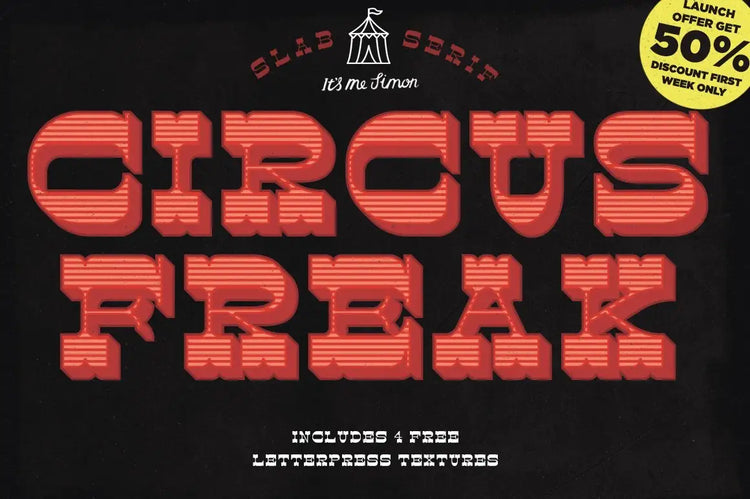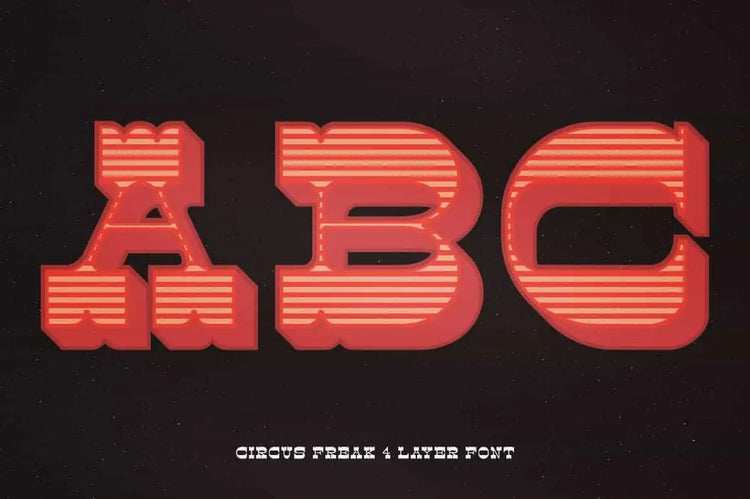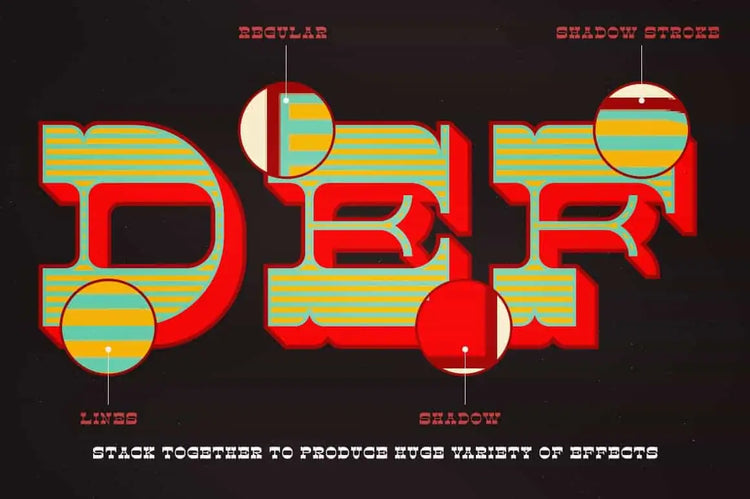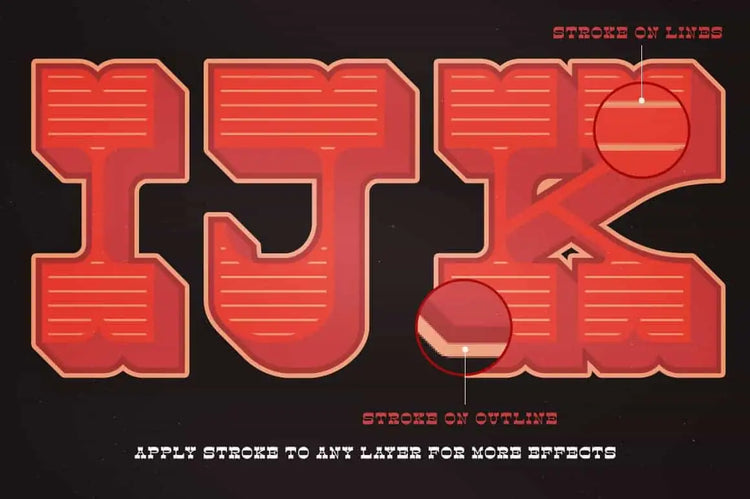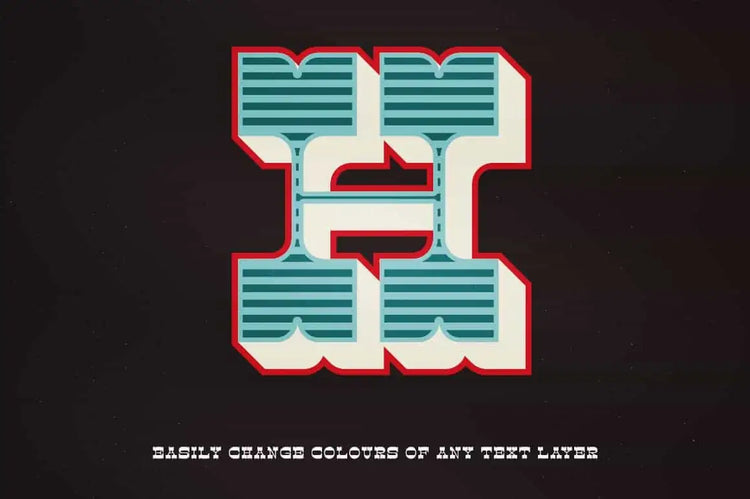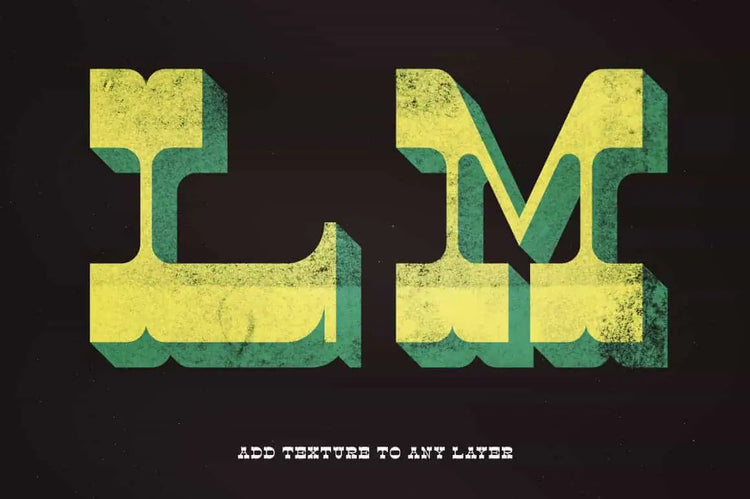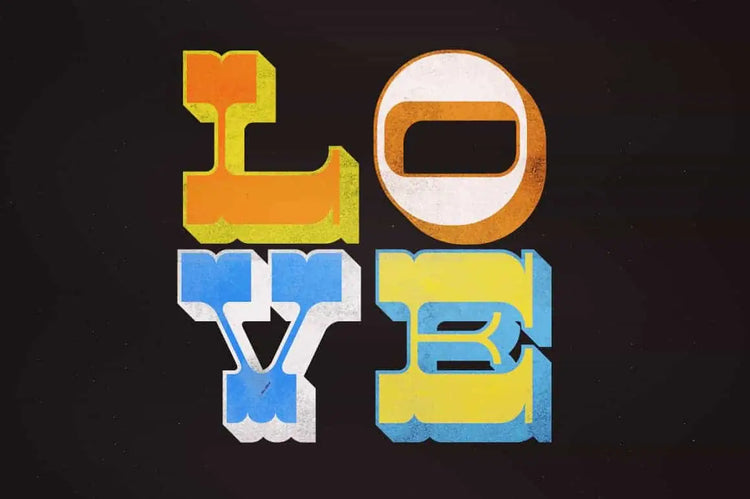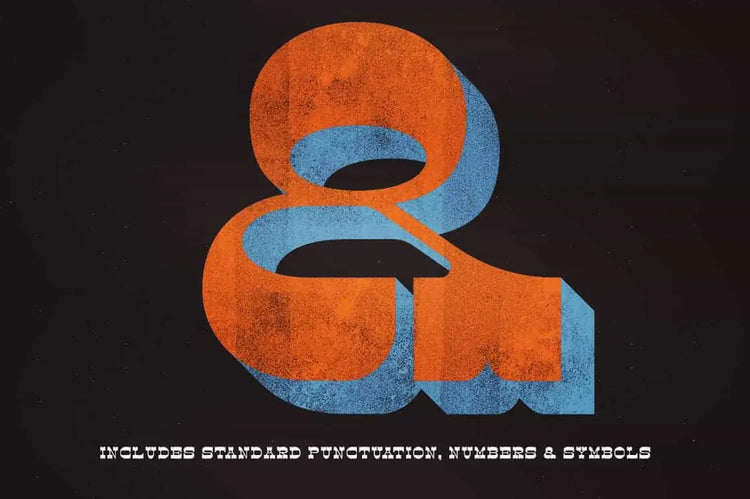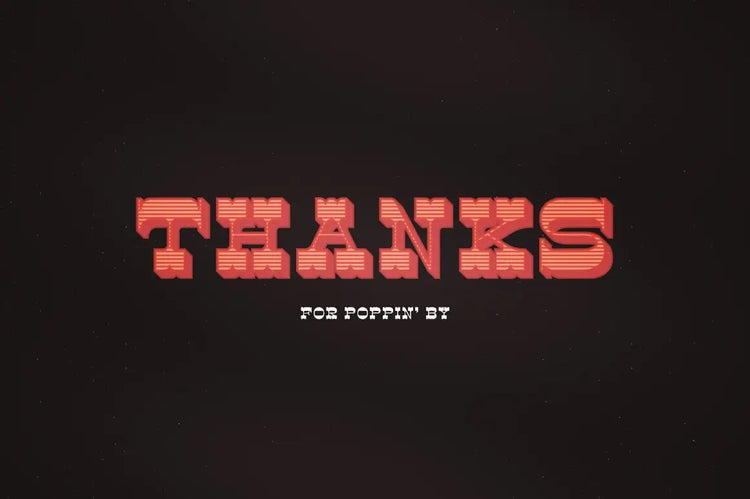
Circus Freak — Chromatic Retro Display Font
About Circus Freak
Circus Freak was inspired by the old chromatic wood type and my appetite to build a chromatic typeface, making it an experimental venture for me.
It consists of four styles that can be layered on top of each other to achieve a chromatic colour effect reminiscent of vintage letterpress printing.
The four styles include:
- Circus Freak Regular
- Circus Freak Lines
- Circus Freak Shadow
- Circus Freak Shadow Stroke
You can also add an inner or outer stroke to any of the layers to create even more effects.